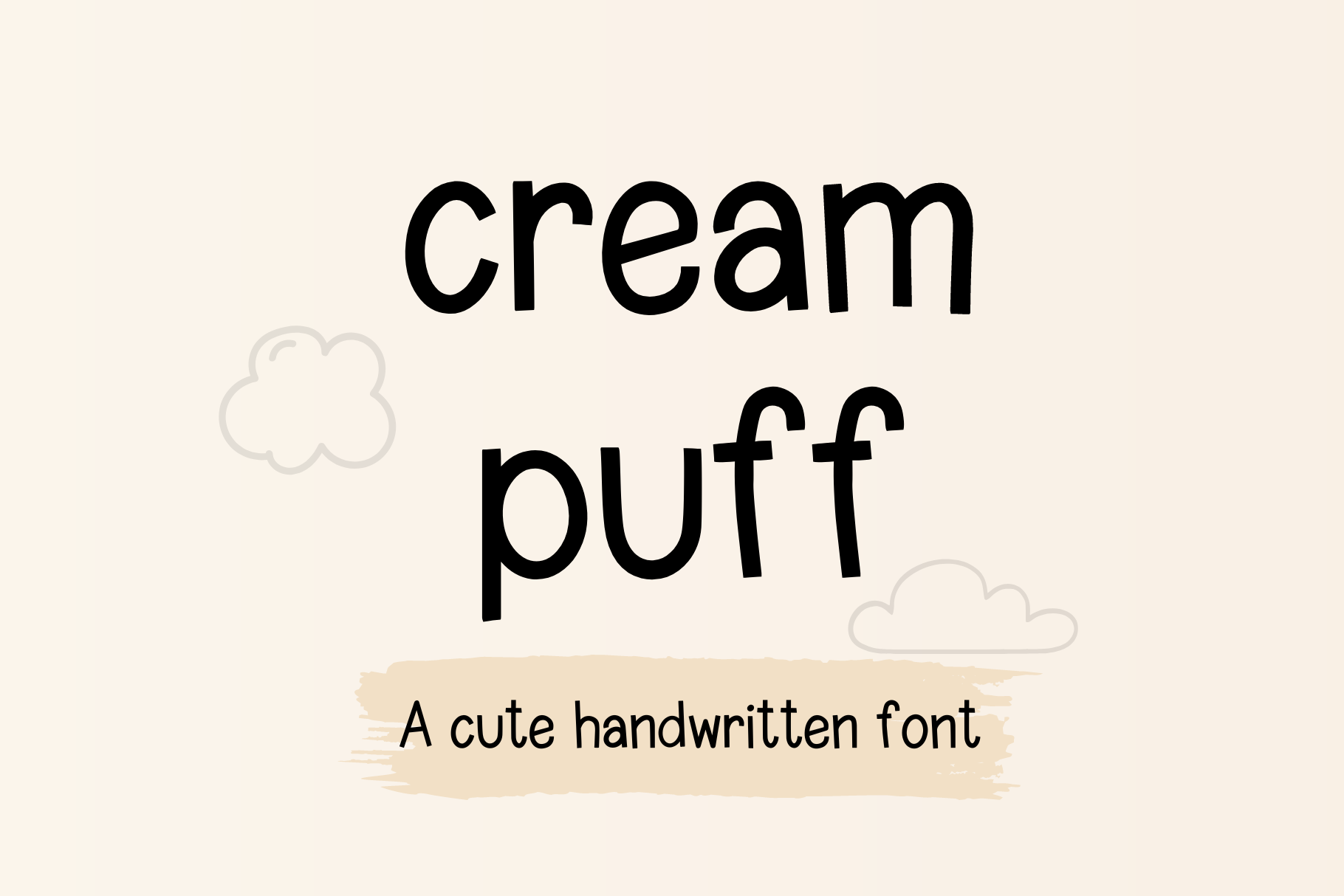
Cream Puff Cute Handwritten Font
Cream Puff is a handwritten font that is cute , playful , neat and clean. It is good for digital prints, quotes for facebook and Instagram, planner, Goodnotes, digital notes, study note, journal and any occasion presentation.